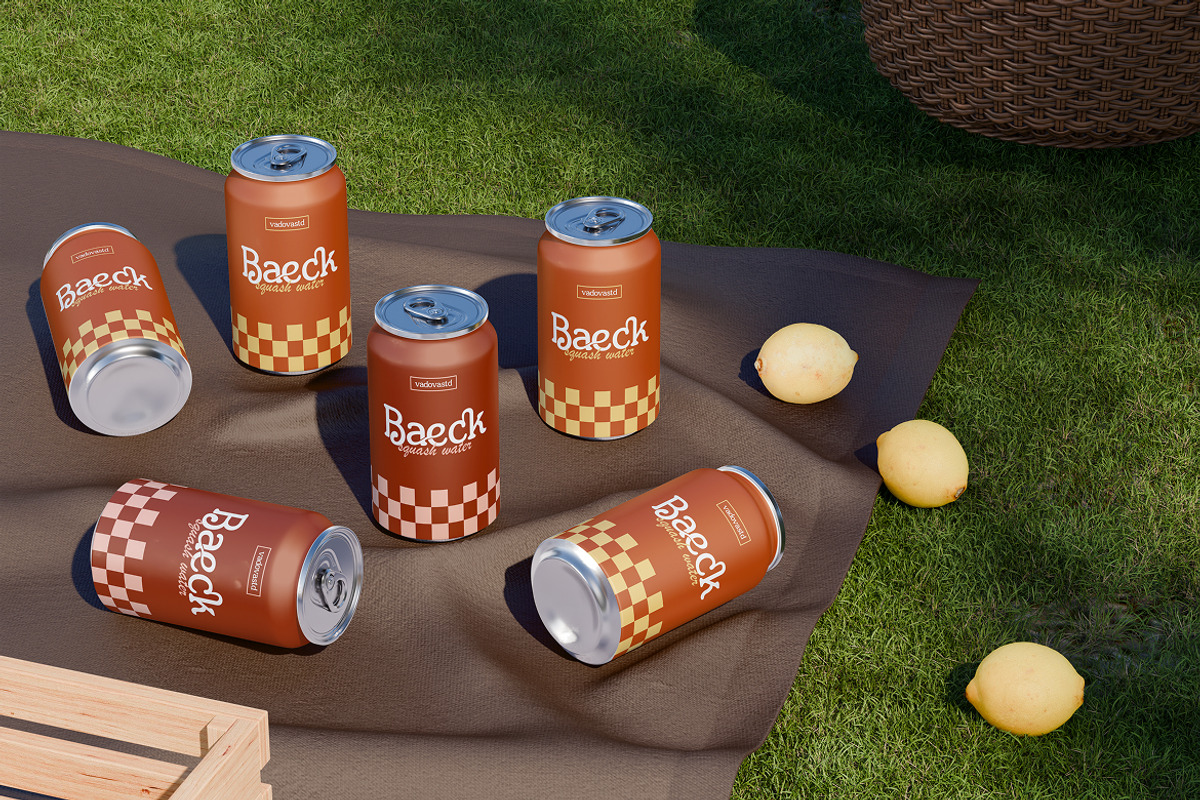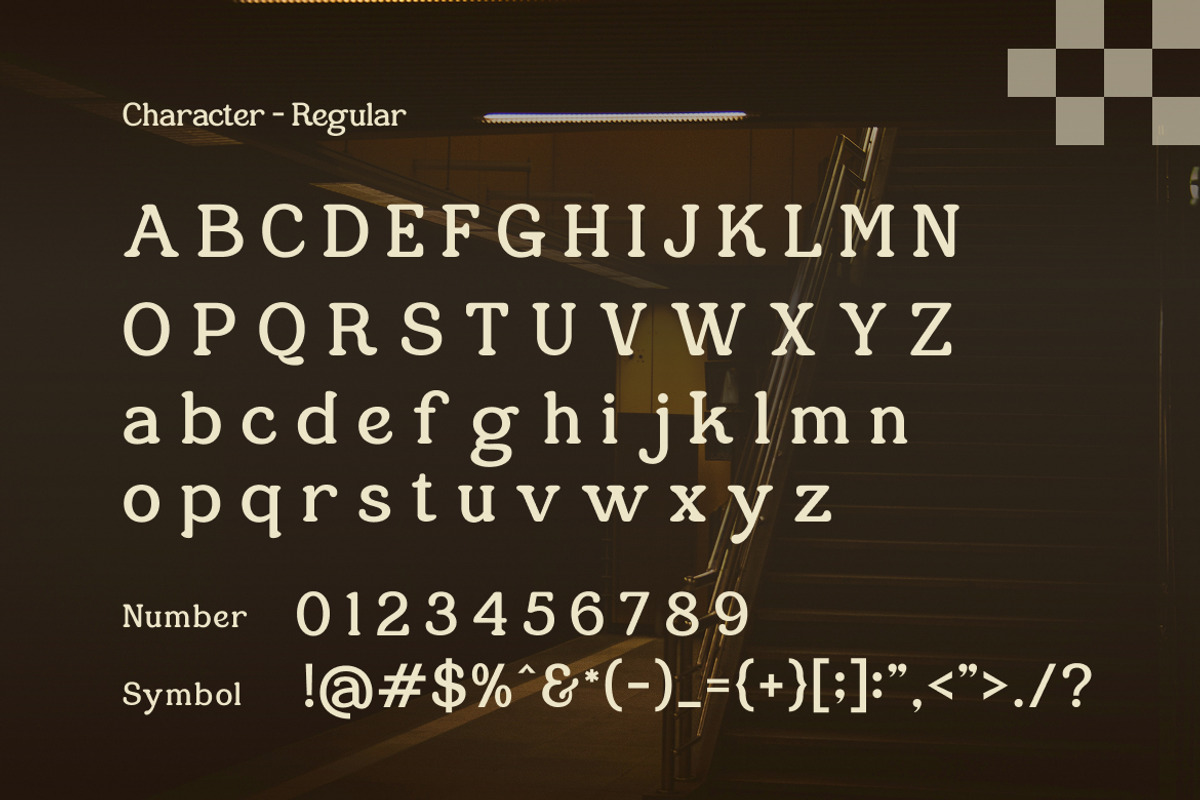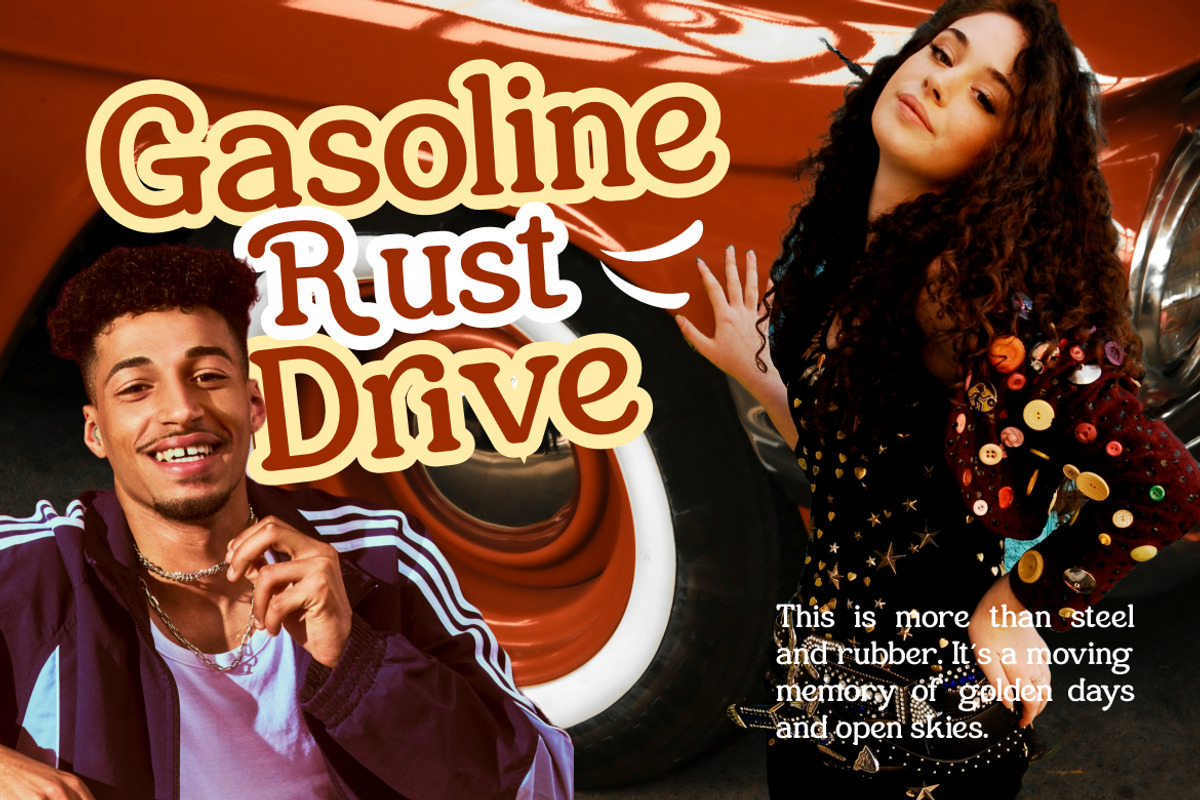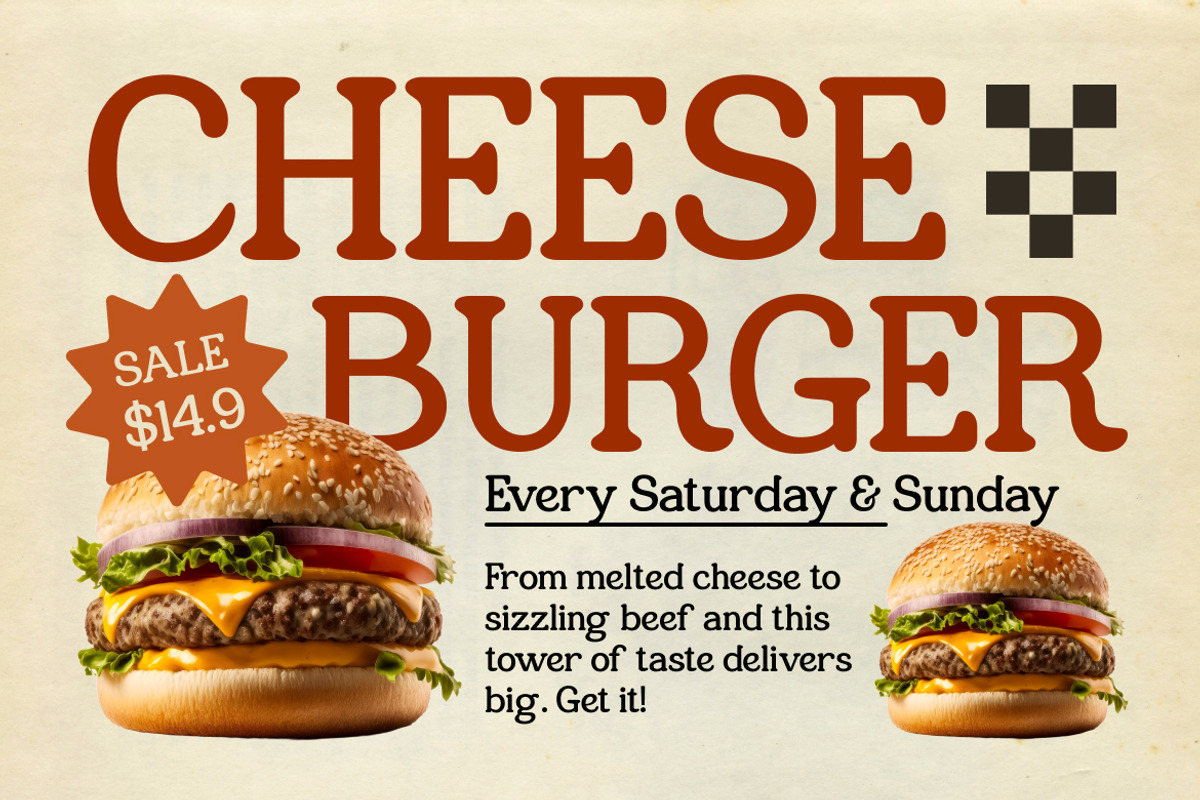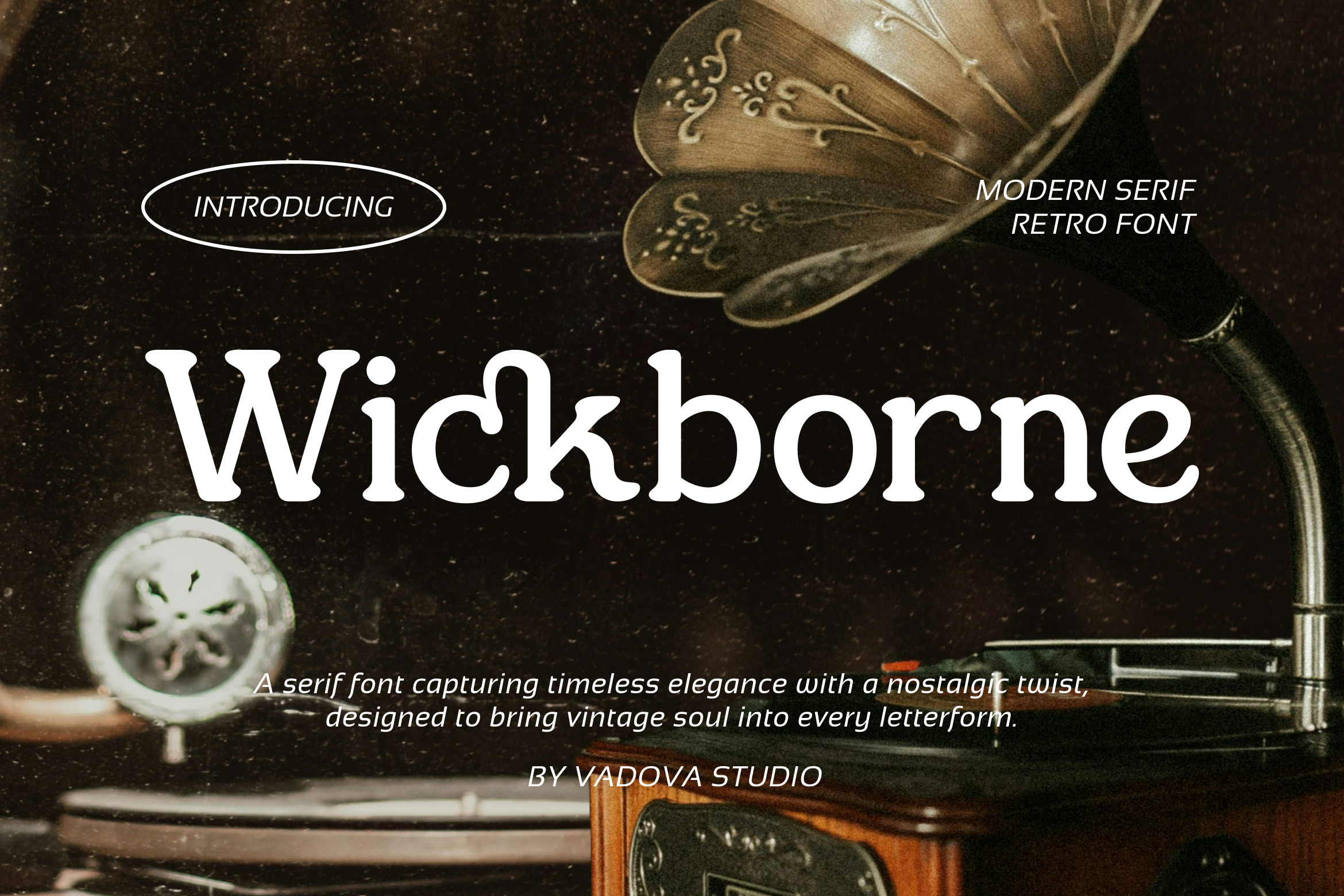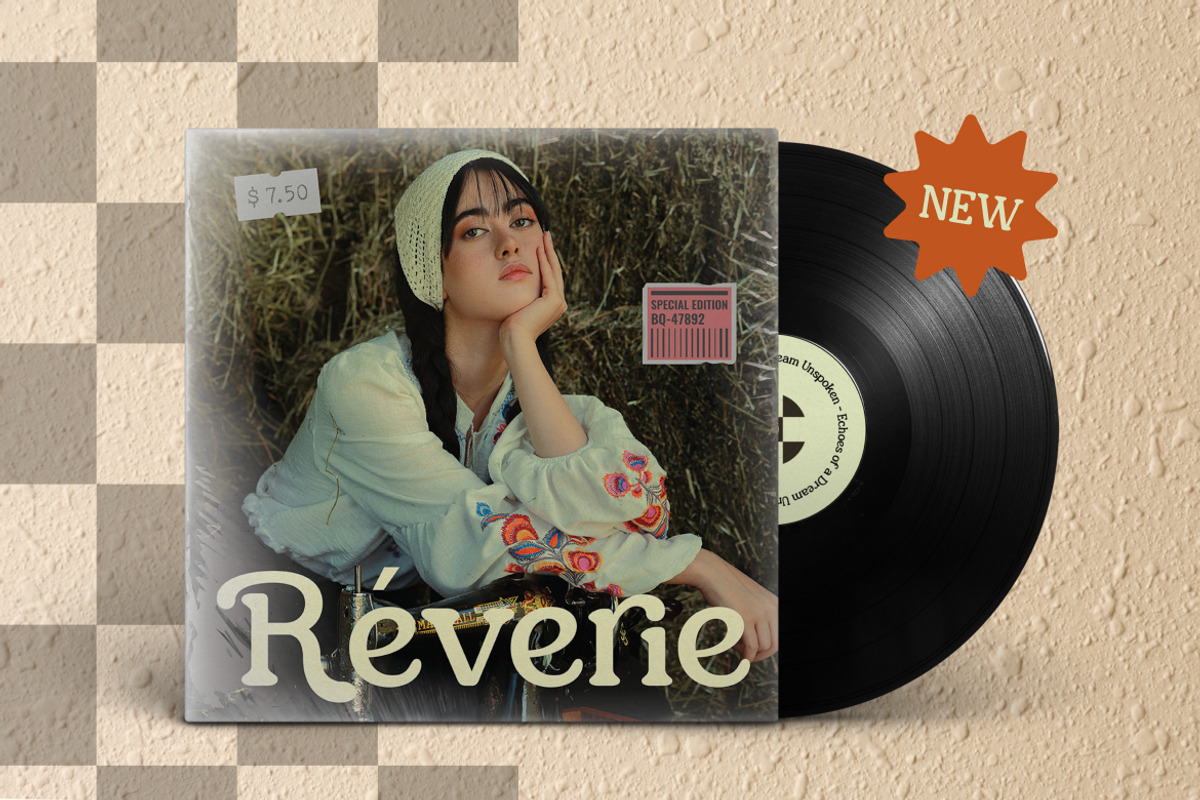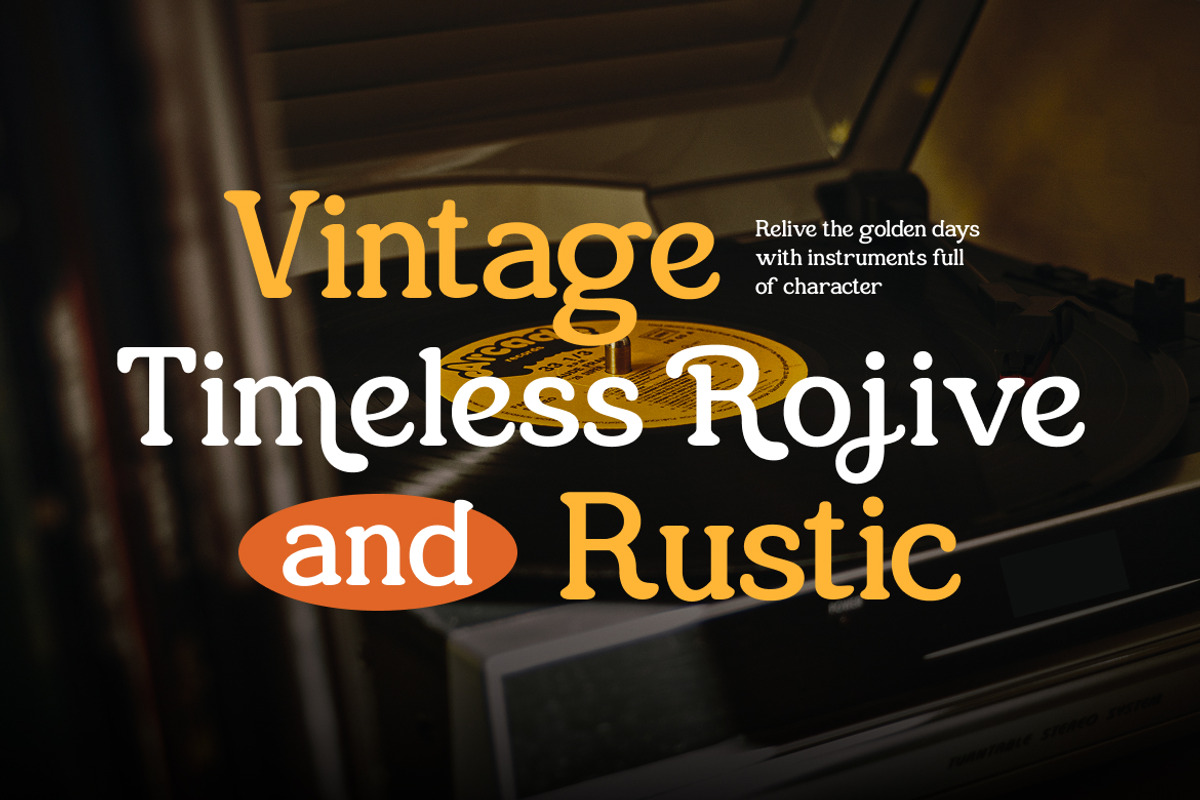
Wickborne – Modern Retro Serif Font
Wickborne is a serif font that captures timeless elegance while adding a nostalgic retro edge. Its letterforms are infused with warmth and personality, carefully crafted to evoke the spirit of vintage design while maintaining modern usability. Perfect for projects that demand character and distinction, Wickborne delivers sophistication wrapped in a touch of retro charm.
Designed to Inspire Creatives This typeface works beautifully across digital and print applications, adapting seamlessly from stylish branding to editorial layouts. Its versatility allows designers to push creative boundaries while ensuring clarity and professionalism remain intact.
Uppercase & lowercase characters
Numerals and punctuation set
Multilingual character support
Modern serif style with retro inspiration
Why Choose Wickborne
Nostalgic Personality: Infuses your designs with a timeless retro vibe.
Sophisticated Aesthetic: Elegant curves and forms enhance visual impact.
Flexible Usage: Perfect for branding, logos, posters, and editorial work.
Standout Presence: Helps your design stand apart with vintage flair.
Best Applications
Boutique logos and luxury branding
Editorial headlines and magazine spreads
Posters and promotional graphics
Wedding invitations and stationery
Vintage-style product packaging
Social media visuals with retro character